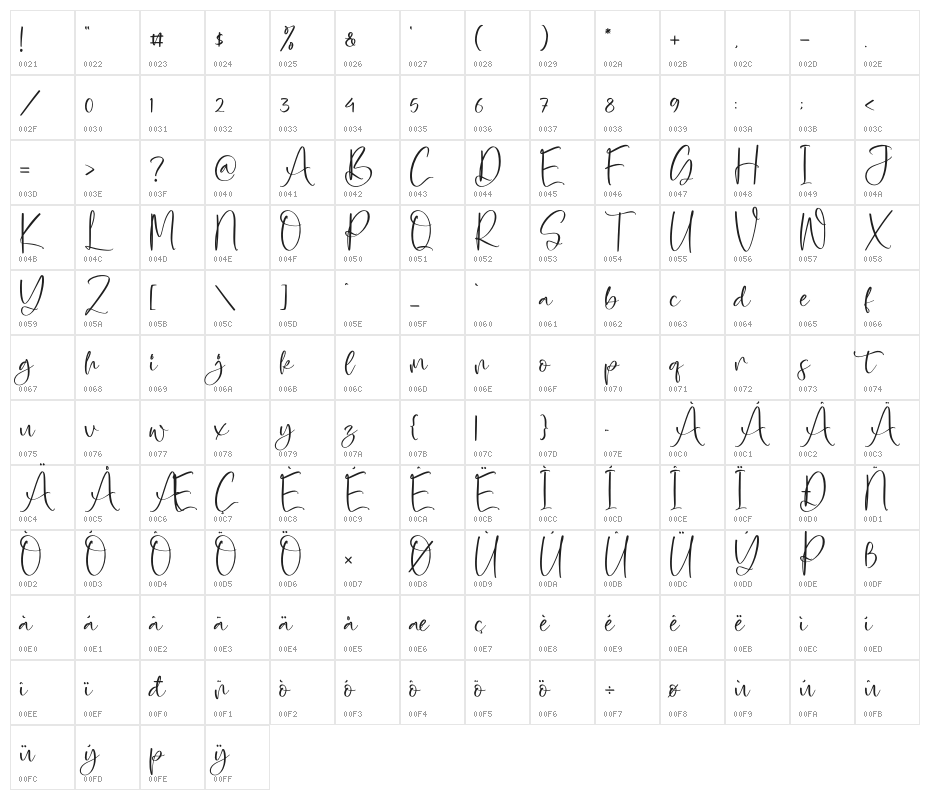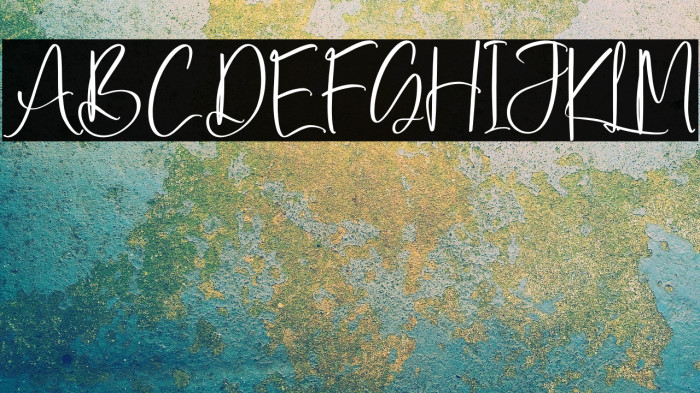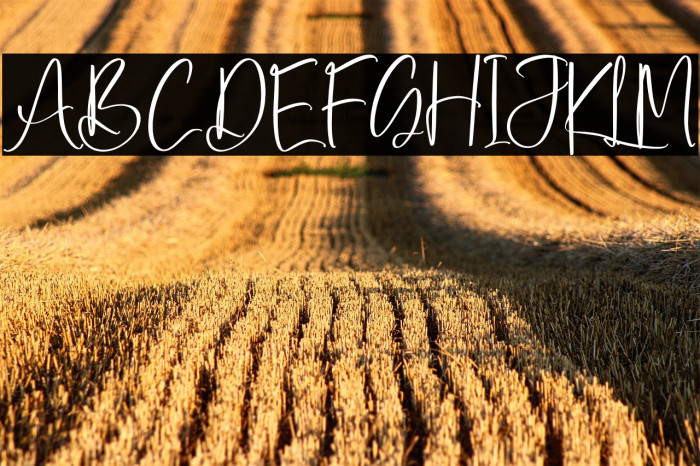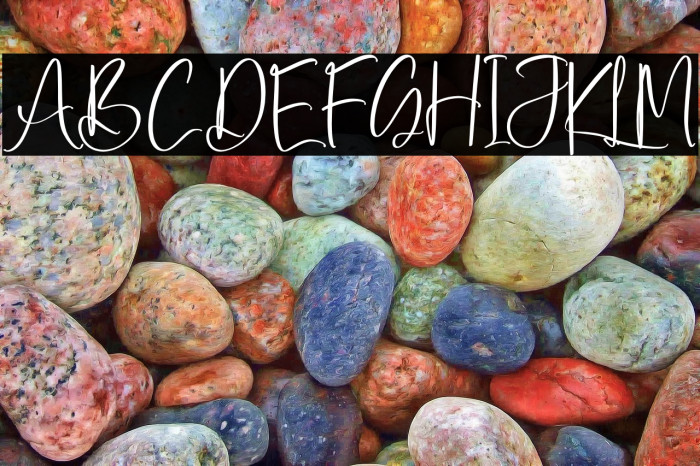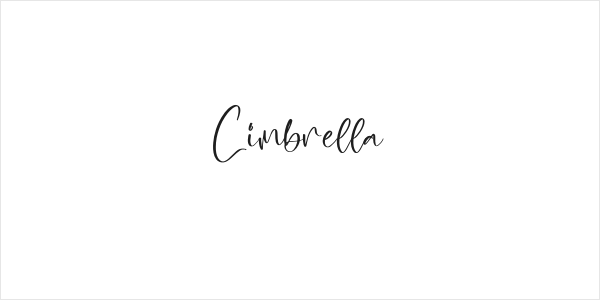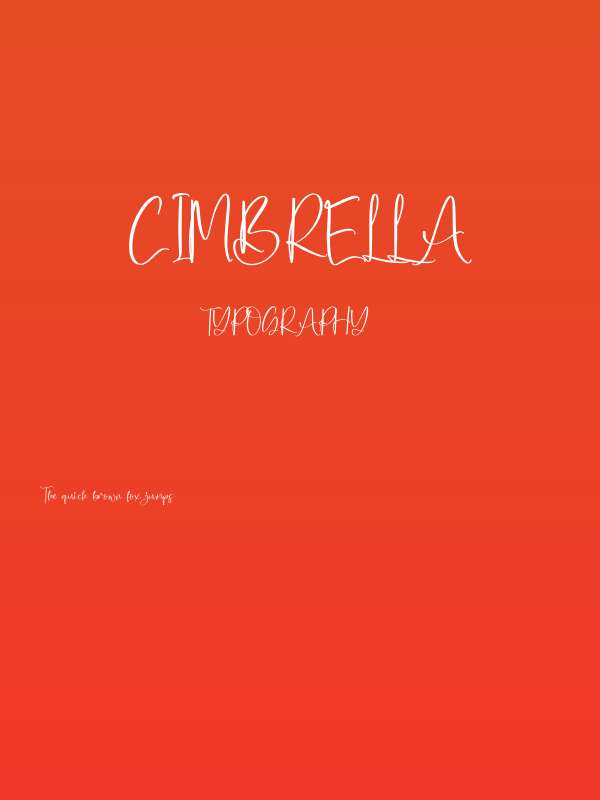
Cimbrella Font
Cimbrella Description
A playful, loose handwritten script with tall, narrow letterforms and flowing, connected strokes. The characters have a casual, whimsical appearance with varying stroke thickness and expressive loops, especially in ascenders and descenders.
| Width | Condensed |
| Overall Style | Decorative, Playful, Casual |
| Use Case | Logos, Headlines, Invitations, Social media graphics |
| Proposed Projects | Greeting cards, invitations, personal branding, quotes, social media graphics, creative posters. |